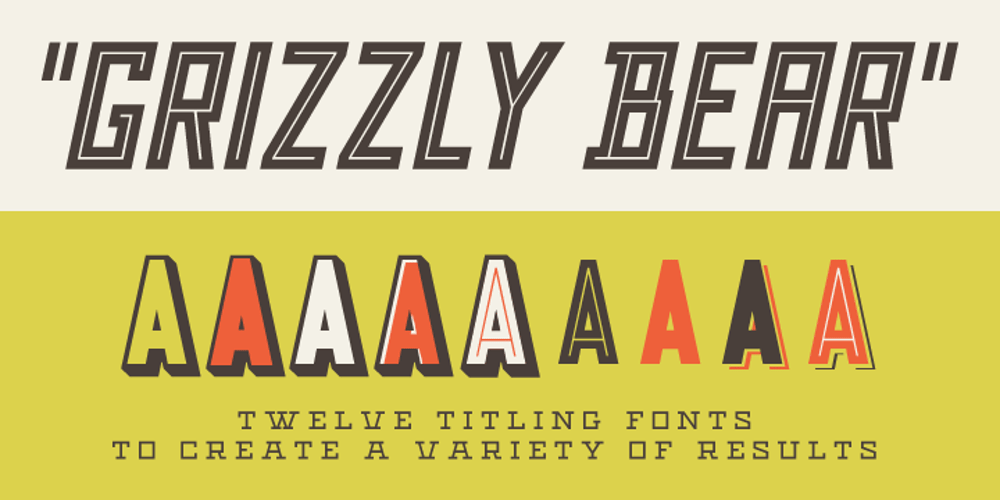
Grizzly Bear Font Family was designed by Alex Sheldon and published by Match & Kerosene. Grizzly Bear contains 28 styles and family package options. Grizzly Bear is a font family of twelve that was designed to create unique titles on the fly. Special attention was given to kerning and trapping to ensure that these fonts work together as a titling system and line up perfectly when layered. An example would be how the inline fill was designed to place under the inline font as the glyph dimensions are shy around the edges to ensure that no fill edges of the under layer show. Flipping these layers would give you an outlined font. The all caps font features a higher x height in the uppercase, a lower x-height in the lower case, alternate punctuation and a few alternate glyphs added in for a good measure. Grizzly Bear looks great when paired with Black Bear.